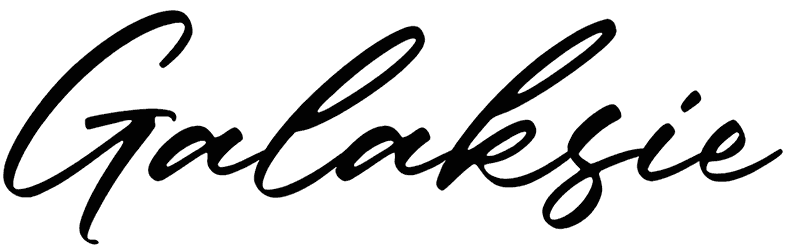
Galaksie Font
With its natural curves and continuous connections, Galaksie creates a lively spirit in your projects, which will make your communication path with the audience smoother. Even though this handwritten font has little legibility, it can be used in wonderful showcases of wedding cards, short letters, and book dedication letters.
In addition, the feminine feeling, and classic elegance of this script font are specially made for content that must enter the audience’s mental space very quickly and involve them.